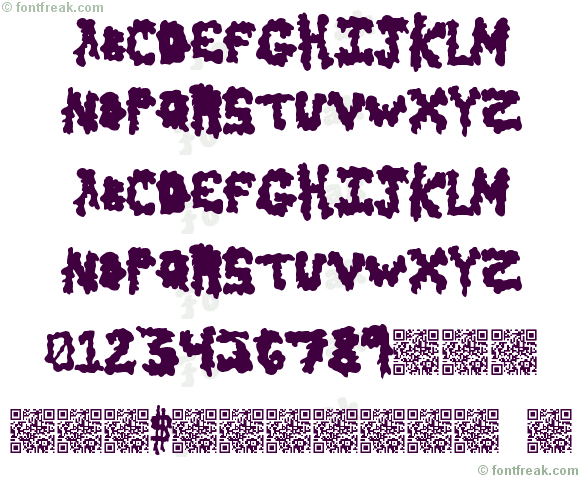
EarlyScare
About EarlyScare
The EarlyScare font by Xerographer Fonts is a distinctive display typeface that captures attention with its playful yet eerie aesthetic. This freeware font, released in 2013, features a unique, irregular design characterized by its bold, thick strokes that create a sense of movement and dynamism. The uneven edges and organic shapes evoke a sense of whimsy, reminiscent of dripping paint or melting letters, making it perfect for projects that require a touch of the unconventional.
With a medium contrast in stroke weight, EarlyScare maintains readability while also delivering a strong visual impact. The spacing is thoughtfully crafted, allowing for ease of use in various applications without sacrificing its distinctive character. This font shines in contexts where creativity and boldness are essential, making it an ideal choice for Halloween-themed events, spooky movie posters, quirky restaurant menus, and children's party invitations. Its playful nature appeals to graphic designers looking to add a unique flair to their projects, as well as small business owners aiming to stand out in a crowded market.
Content creators will also find EarlyScare font free download an enticing option for digital content, including social media graphics and blog headers that aim to capture the audience's curiosity. This font stands out due to its ability to blend fun and fright, providing a fresh alternative to conventional typefaces. Whether you are crafting marketing materials or designing eye-catching visuals, EarlyScare offers an expressive solution that resonates with users seeking a distinctive voice in their typography. Its versatility and unique style make it a valuable addition to any designer's toolkit, ensuring that your project will leave a lasting impression.